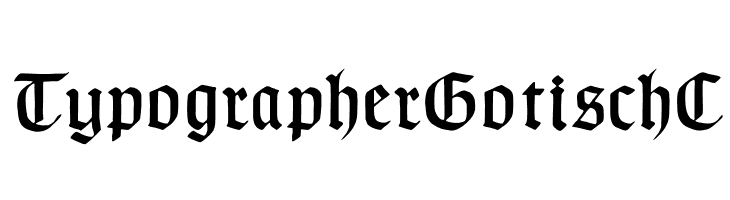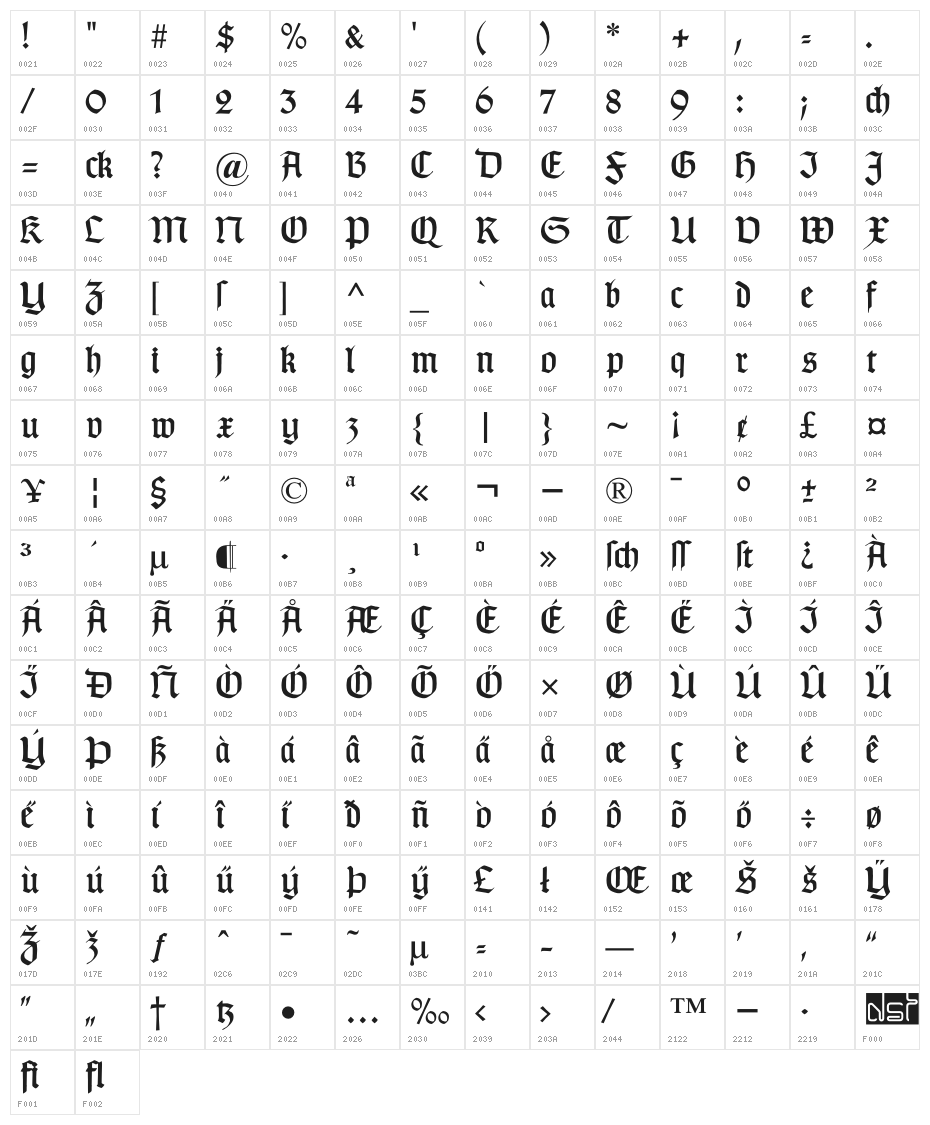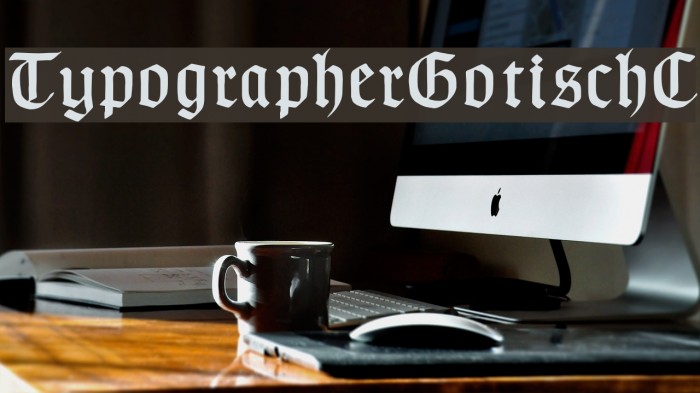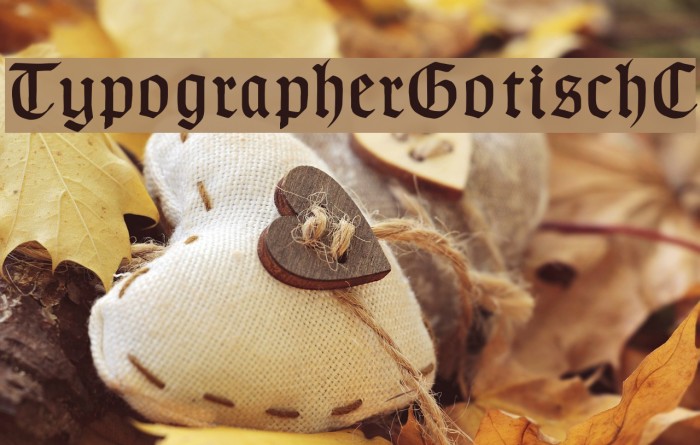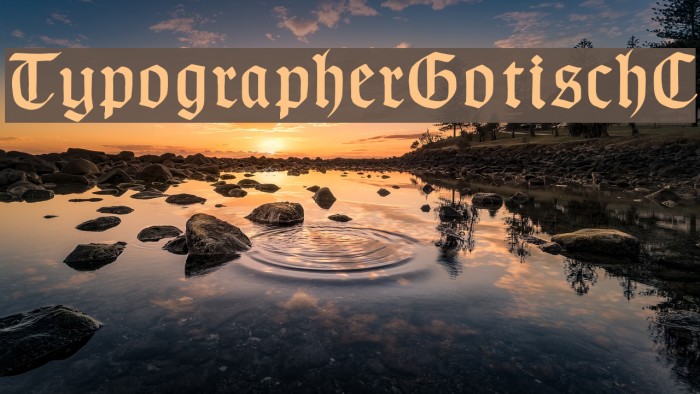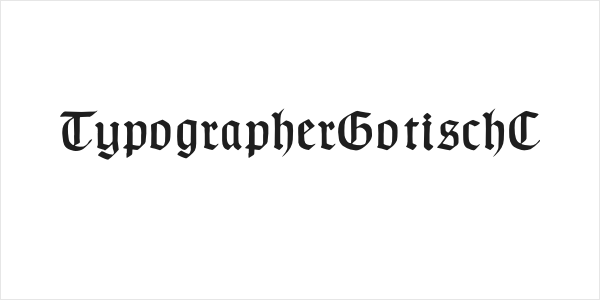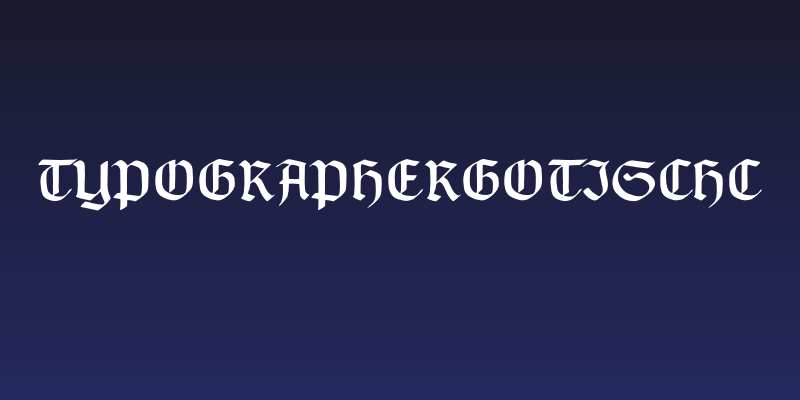
TypographerGotischC Font
TypographerGotischC Description
This font features a traditional blackletter style, characterized by its intricate and ornate letterforms. The uppercase letters exhibit sharp, angular strokes with a distinct medieval flair, while the lowercase letters maintain a consistent style with slightly more rounded elements. The numerals are bold and follow the same gothic aesthetic, ensuring uniformity across the character set. Special characters are designed to complement the overall style, making this font suitable for projects that require a historical or classical touch. Its bold and dramatic appearance makes it ideal for impactful designs.
| Use Case | Headlines, Logos, Decorative text |
| Proposed Projects | Suitable for historical documents, medieval-themed designs, book covers, and decorative headings. |